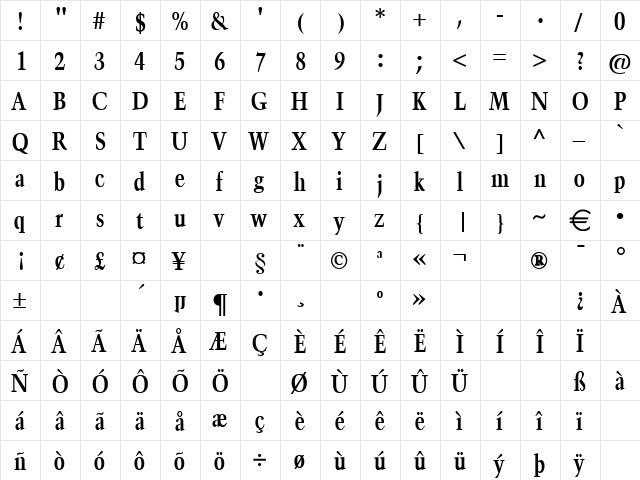
Horn Bold
Design Context for Horn Typeface
Horn offers clean, dependable letterforms without strong stylistic allegiance, making it a practical choice for designers who need flexibility. Its bold stroke weight gives it real presence on the page.
Pro Tip: Pair Horn with a font of contrasting weight or personality to build a more expressive typographic hierarchy.